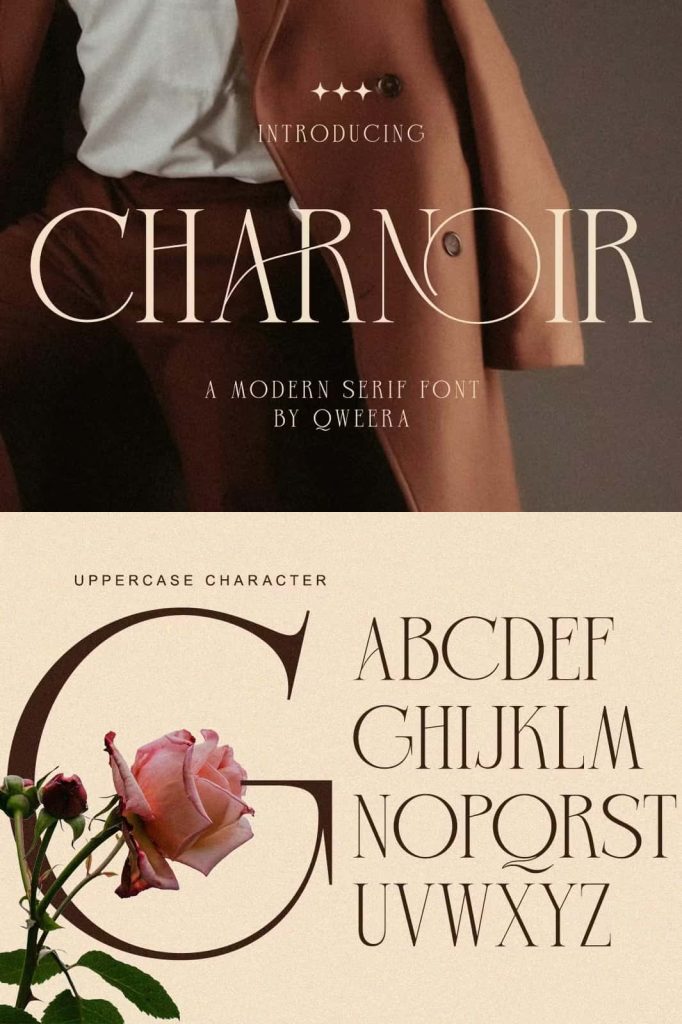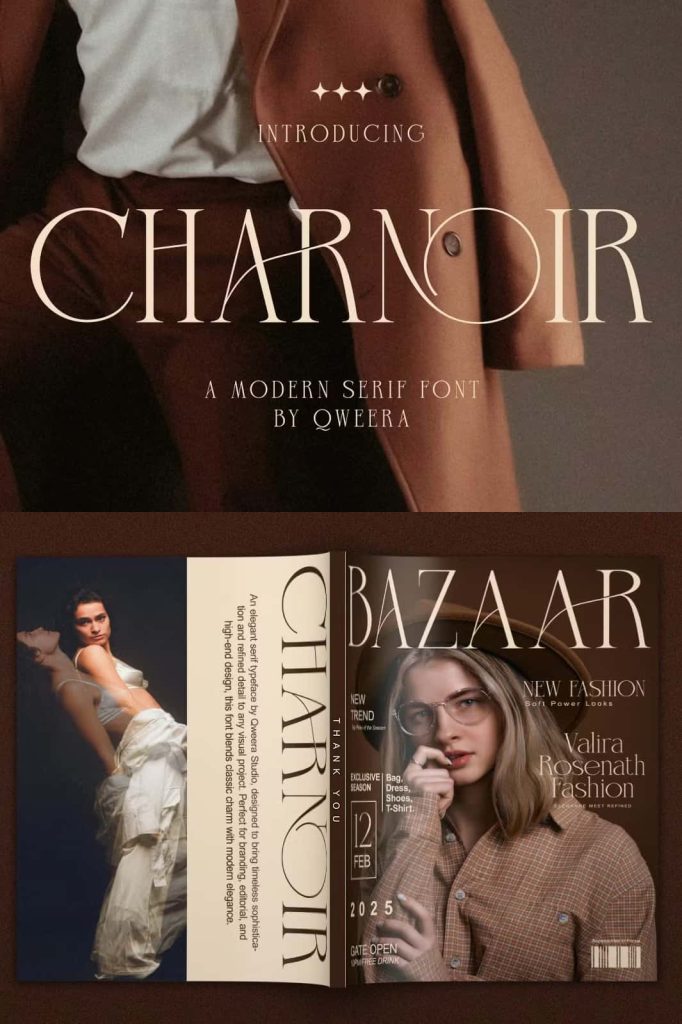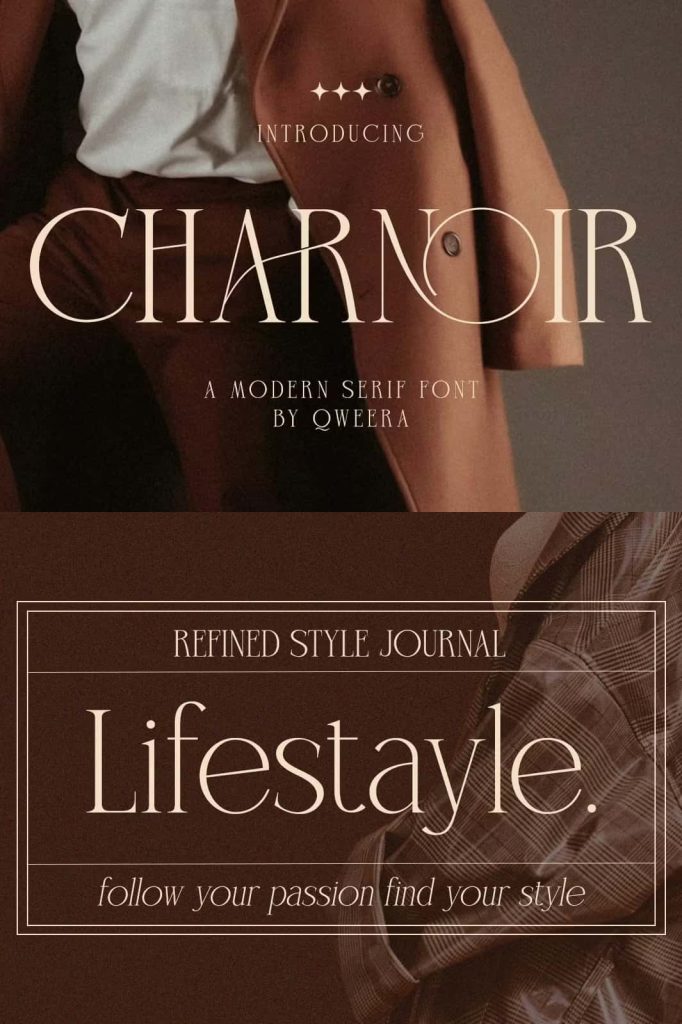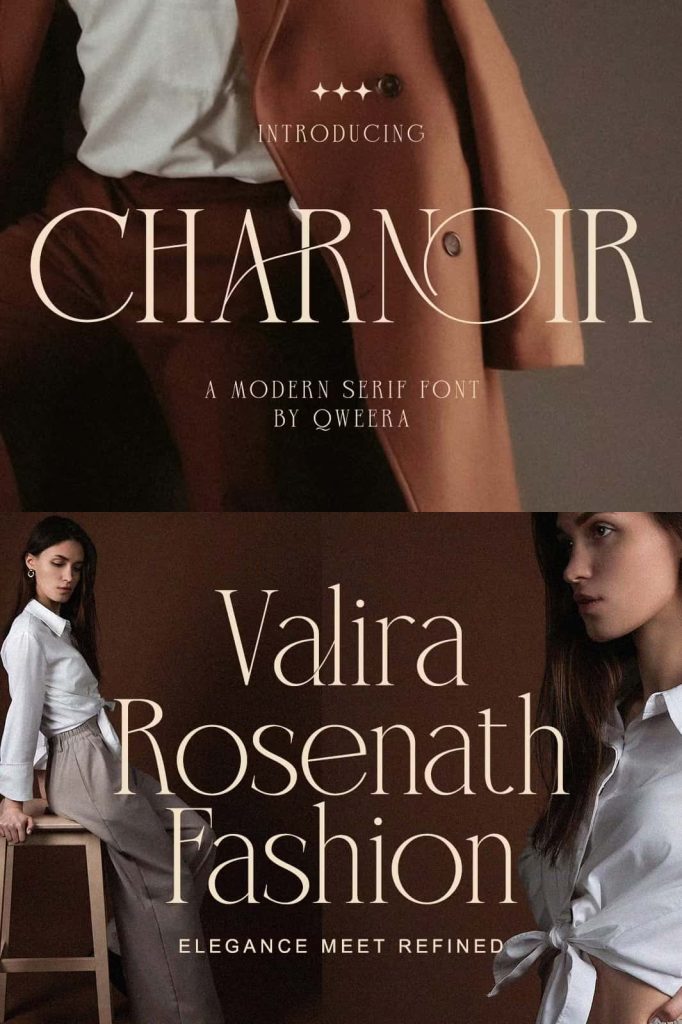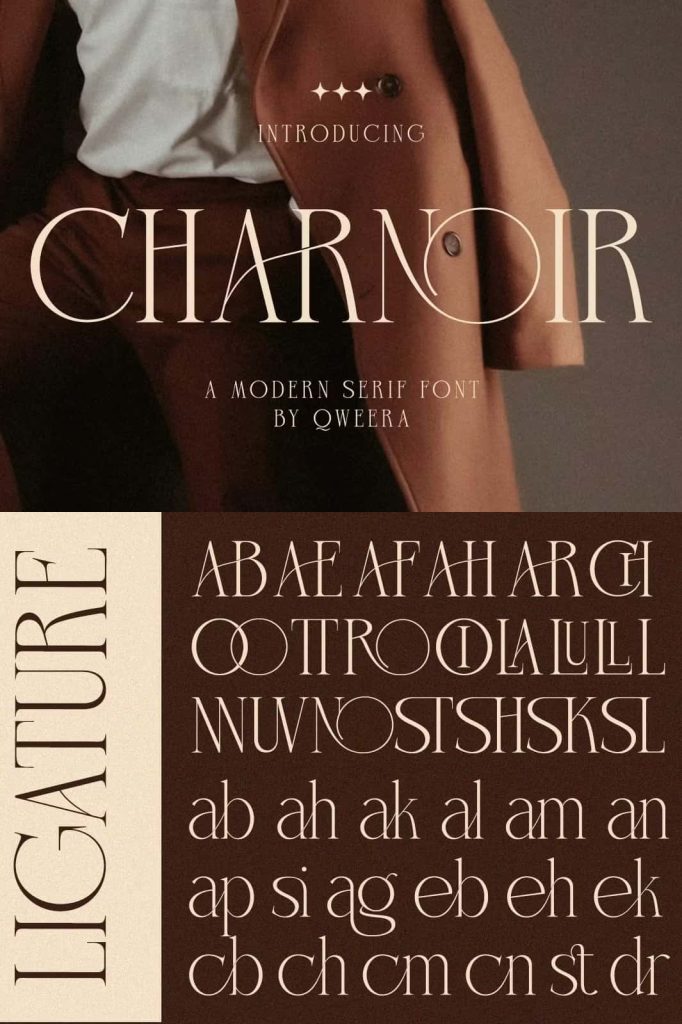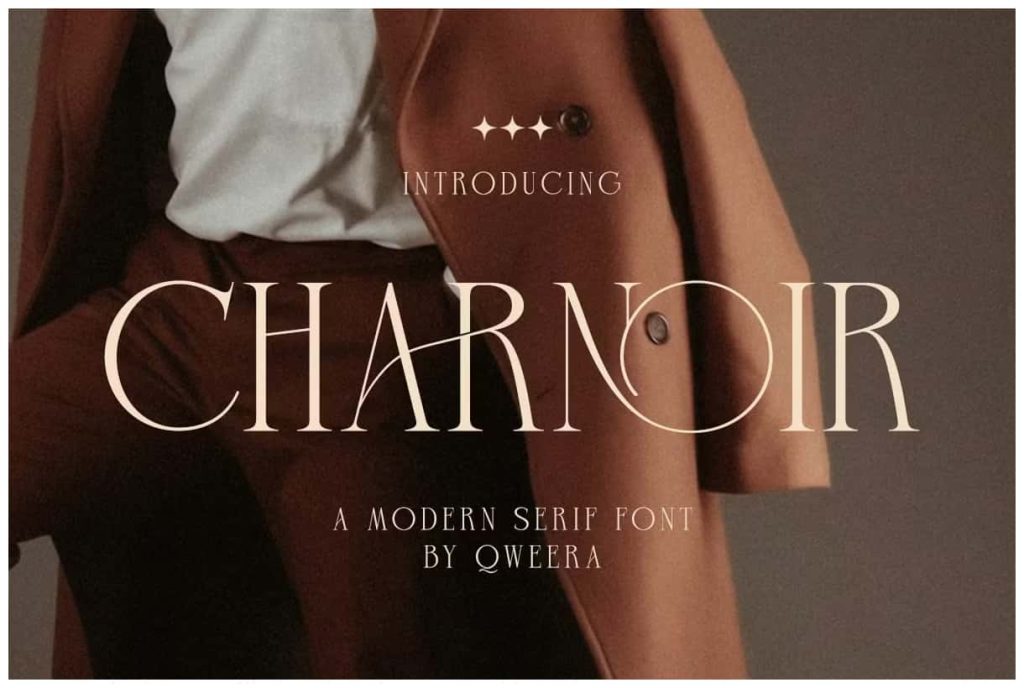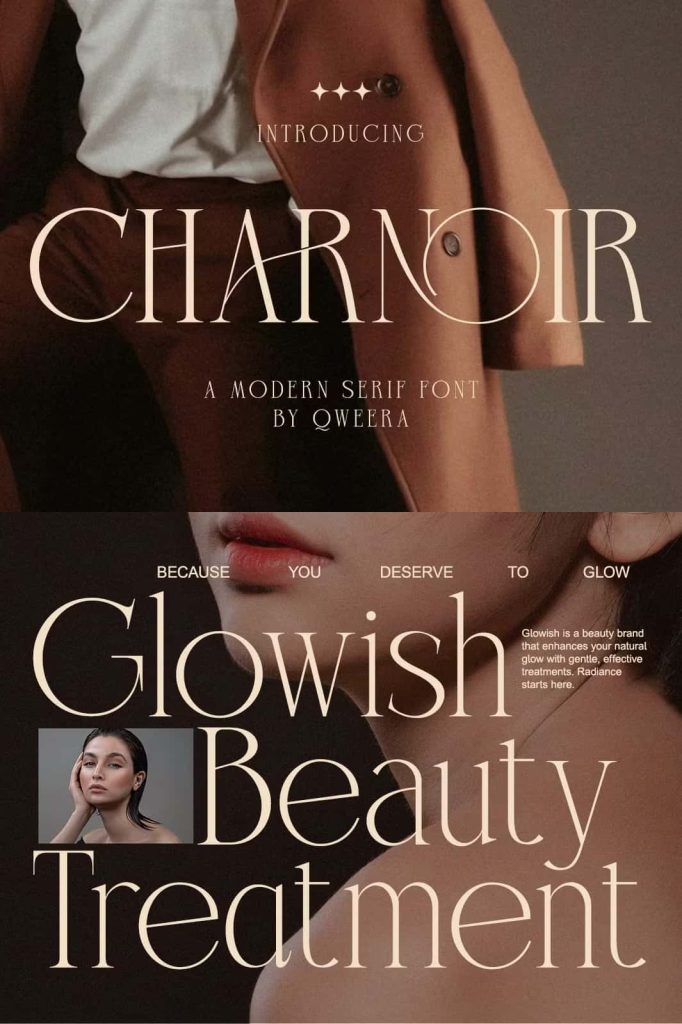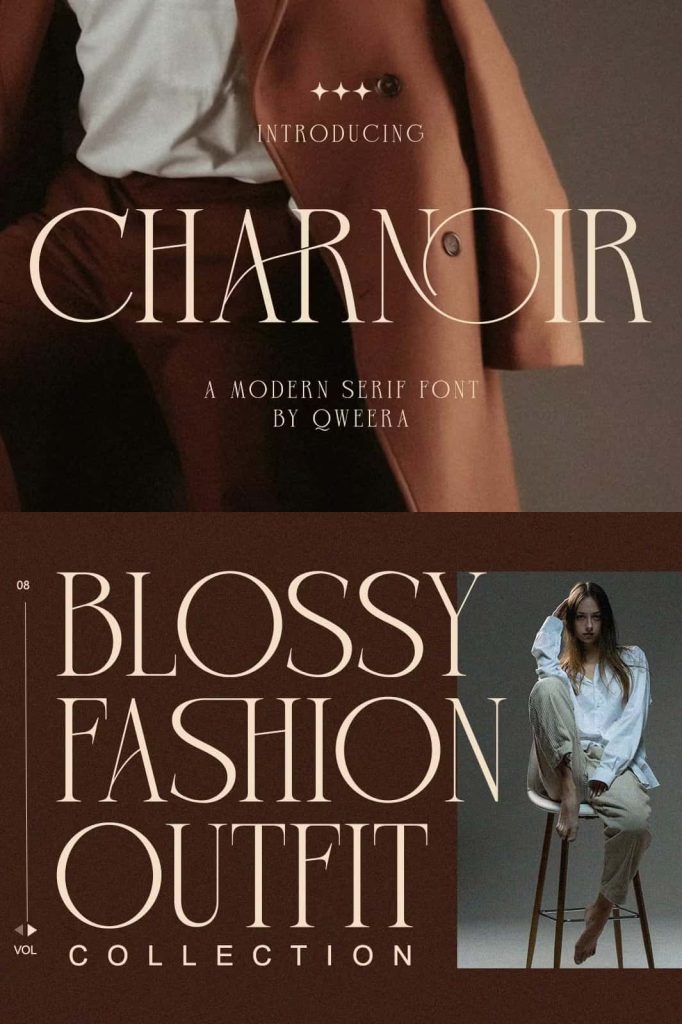
Charnoir is a high-class serif typeface that blends dramatic curves with minimalist finesse. Tailored for fashion editorials, branding for premium products, and elegant logos, Charnoir carries an aura of mystery and timeless beauty.